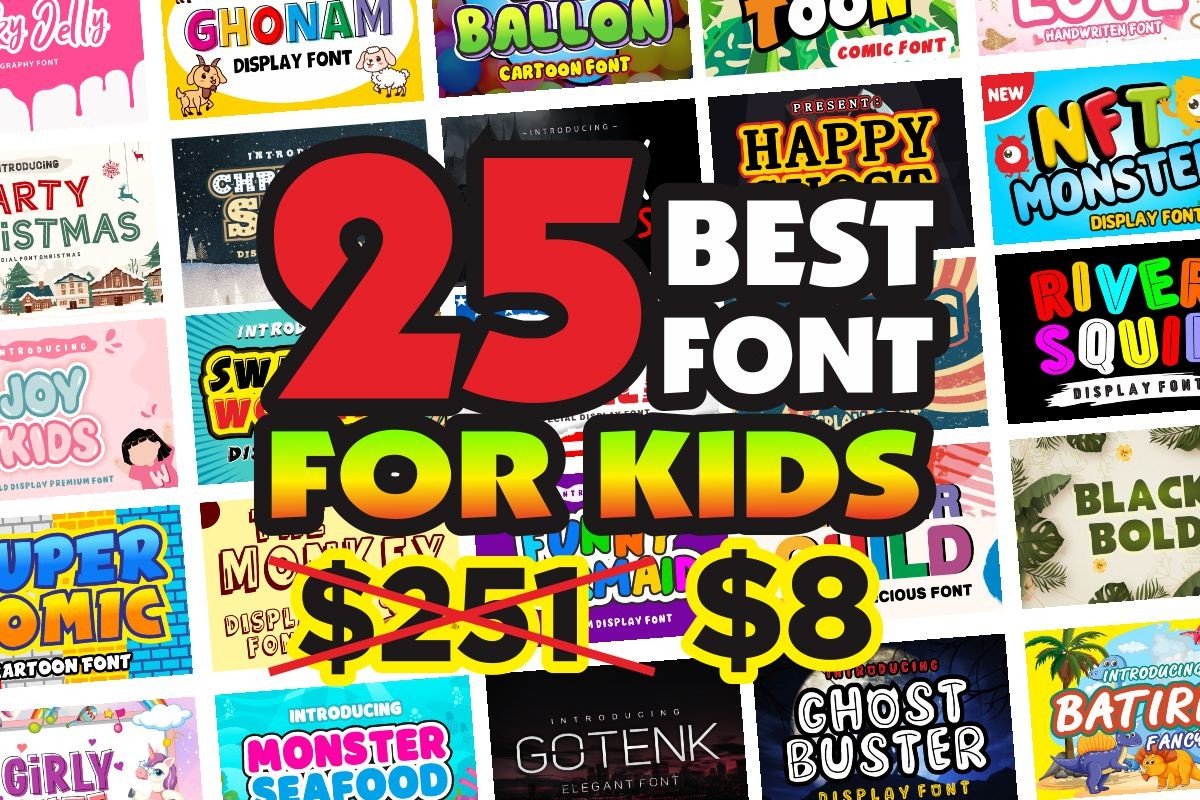
Kids Font Collection Bundle 25 Premium Fonts
Kids Font Collection Bundle
This bundle features 25 high-quality Kids fonts, covering all your crafting needs. With this bundle, you can create a variety of projects from greeting cards, invitations, social media posts, logos, and so much more!
Bring joy and imagination to your children’s projects with this delightful collection of 25 English fonts featuring charming, child-friendly designs. This comprehensive package provides graphic designers, illustrators, and content creators with a versatile palette of typefaces specifically crafted to appeal to young audiences and enhance any project related to the children’s world.
The collection features fonts with diverse child-friendly styles:
- Playful Bubble Letters: Soft, rounded fonts that feel friendly and approachable
- Handwritten Kids’ Styles: Authentic, casual scripts that feel personal and warm
- Animal-Shaped Fonts: Letters incorporating cute animal elements
- Cartoon & Comic Styles: Bold, fun designs perfect for storytelling
- Educational Fonts: Clear, readable typefaces for learning materials
- Fantasy & Fairy Tale: Whimsical fonts for magical children’s stories
- Colorful Display Fonts: Engaging designs that capture attention
This versatile collection is perfect for:
- Story Books: Create engaging typography for children’s literature
- Greeting Cards: Design birthday, holiday, and special occasion cards for kids
- Posters & Flyers: Promote children’s events, classes, and activities
- Educational Materials: Develop worksheets, flashcards, and learning aids
- Birthday Invitations: Design fun party announcements
- Children’s Branding: Create identities for kids’ products and services
- Packaging: Design appealing labels for children’s products
- Room Decor: Create personalized name art and wall prints
- Digital Content: Design engaging social media for kids’ brands
Each font in this collection has been specially designed with children in mind—considering readability, appeal, and the ability to capture young imaginations. The variety of designs and styles gives you maximum flexibility in choosing the perfect fonts for your specific projects, allowing you to create unique works with an attractive, fresh touch that resonates with both children and parents.
Key Features of This Children’s Font Collection:
- 25 Unique Child-Friendly Fonts: Playful, educational, fantasy, and cartoon styles.
- Designed for Young Audiences: Each font crafted with children’s appeal in mind.
- Complete Creative Toolkit: Perfect for books, cards, posters, and educational materials.
- Professional Quality: High-caliber fonts suitable for commercial children’s projects.
- Maximum Flexibility: Diverse styles for every children’s design need.
- Children’s book illustrators and publishers
- Graphic designers specializing in kids’ projects
- Educational content creators
- Birthday and event planners
- Children’s product brands and marketers
- Teachers and educators
- Parents creating personalized kids’ items
- Toy and game designers
- Anyone creating for the children’s world